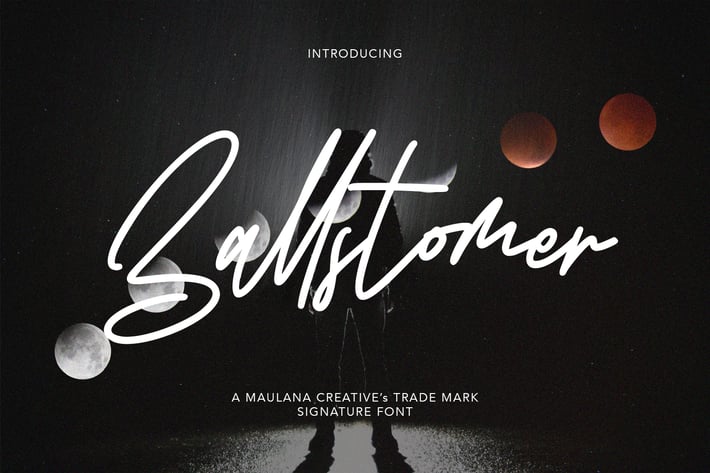
Ballstomer Signature Font
Give your designs an authentic handcrafted feel. Ballstomer Signature Font is perfectly suited to logo, stationery, branding, typography quotes, magazine or book cover, website header, clothing, branding, packaging design, restaurant and more.